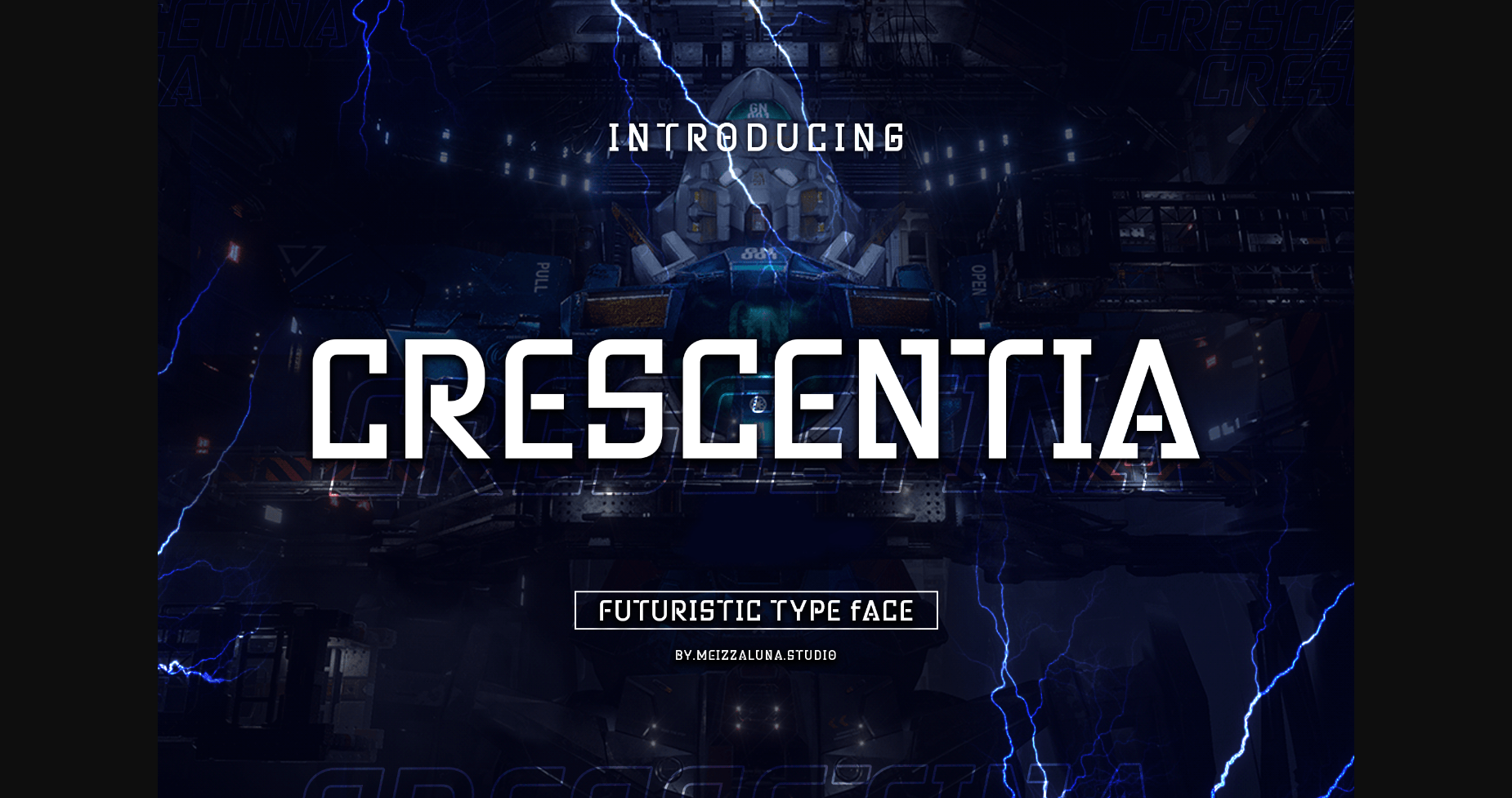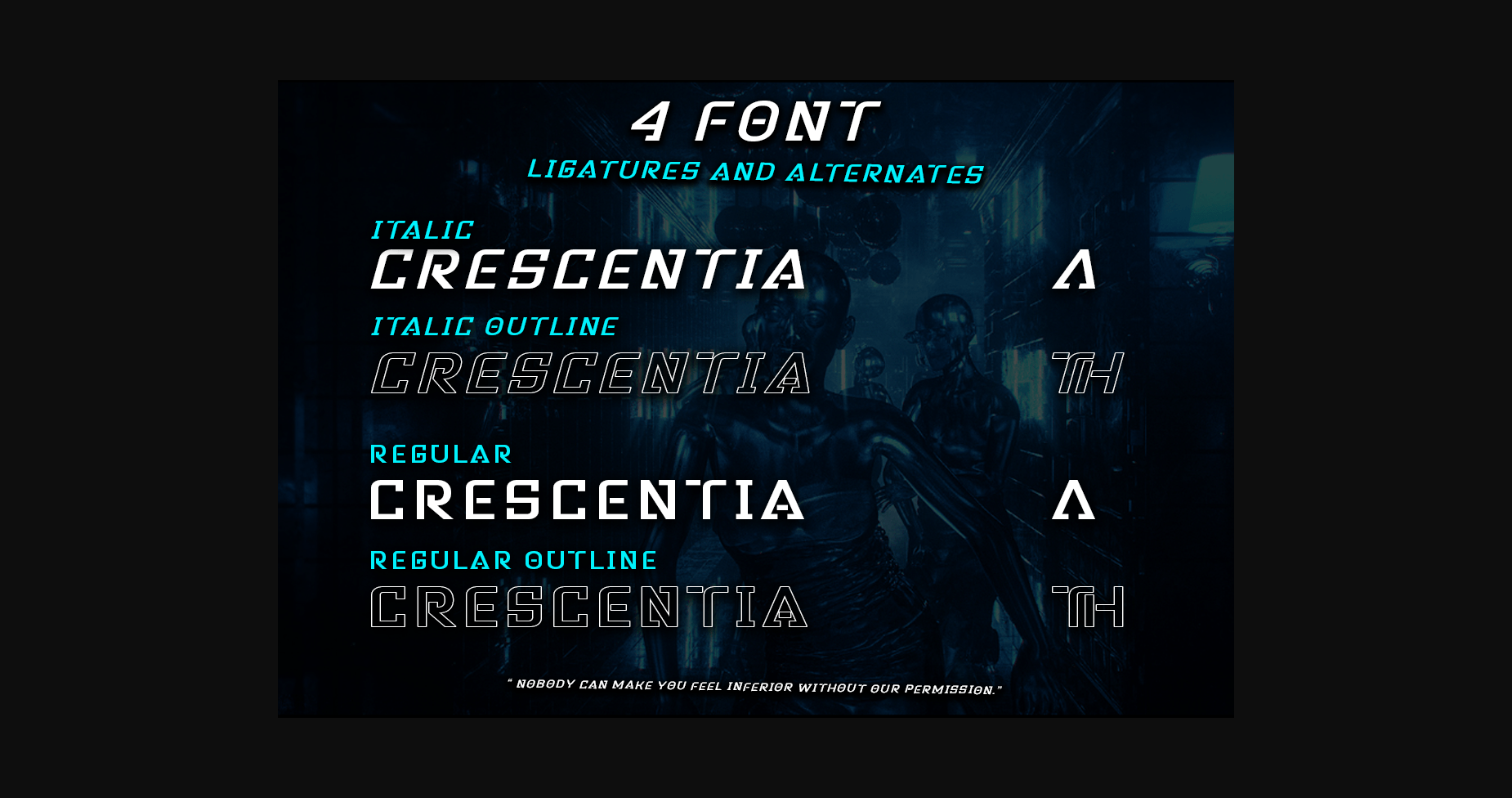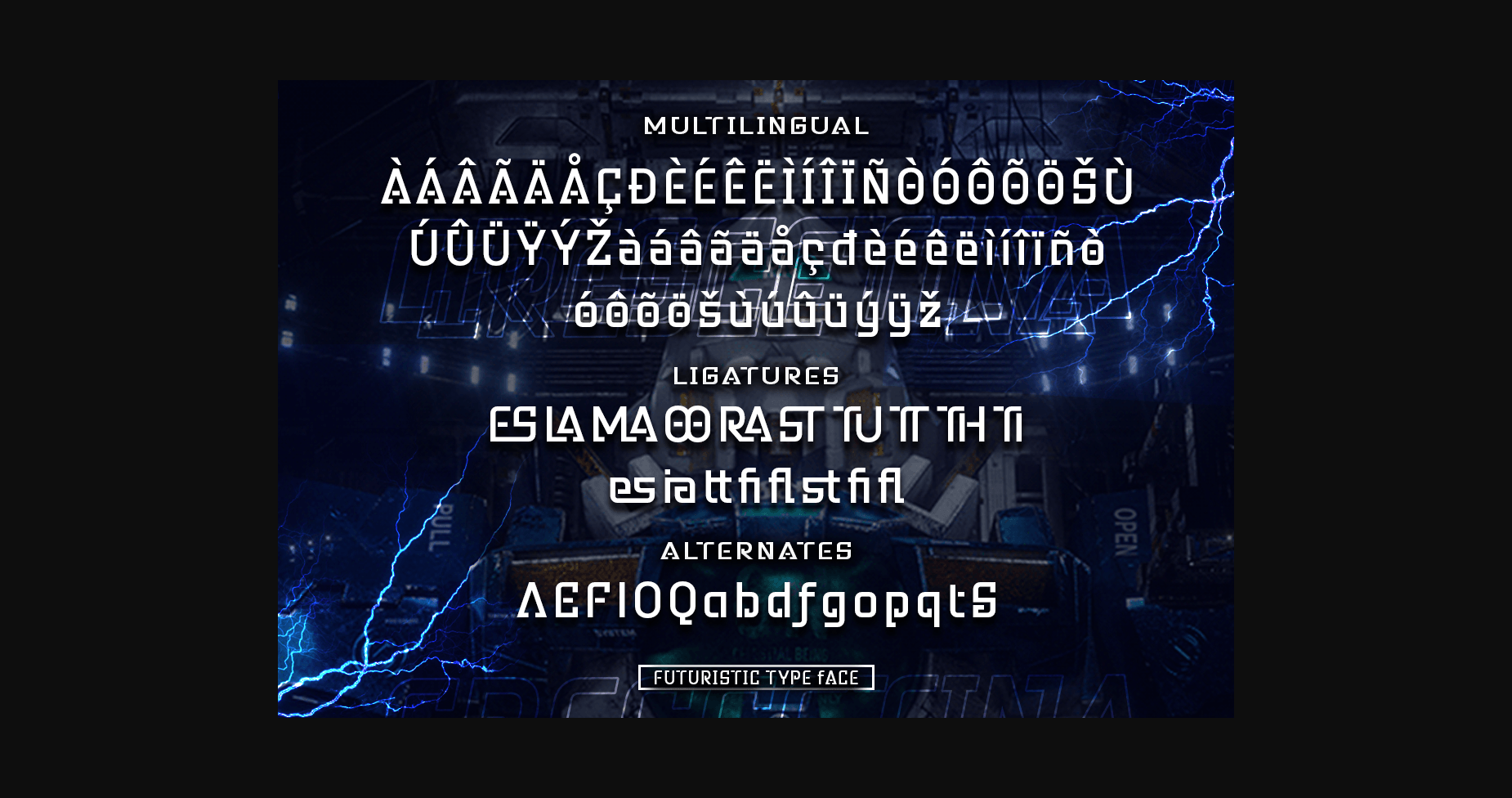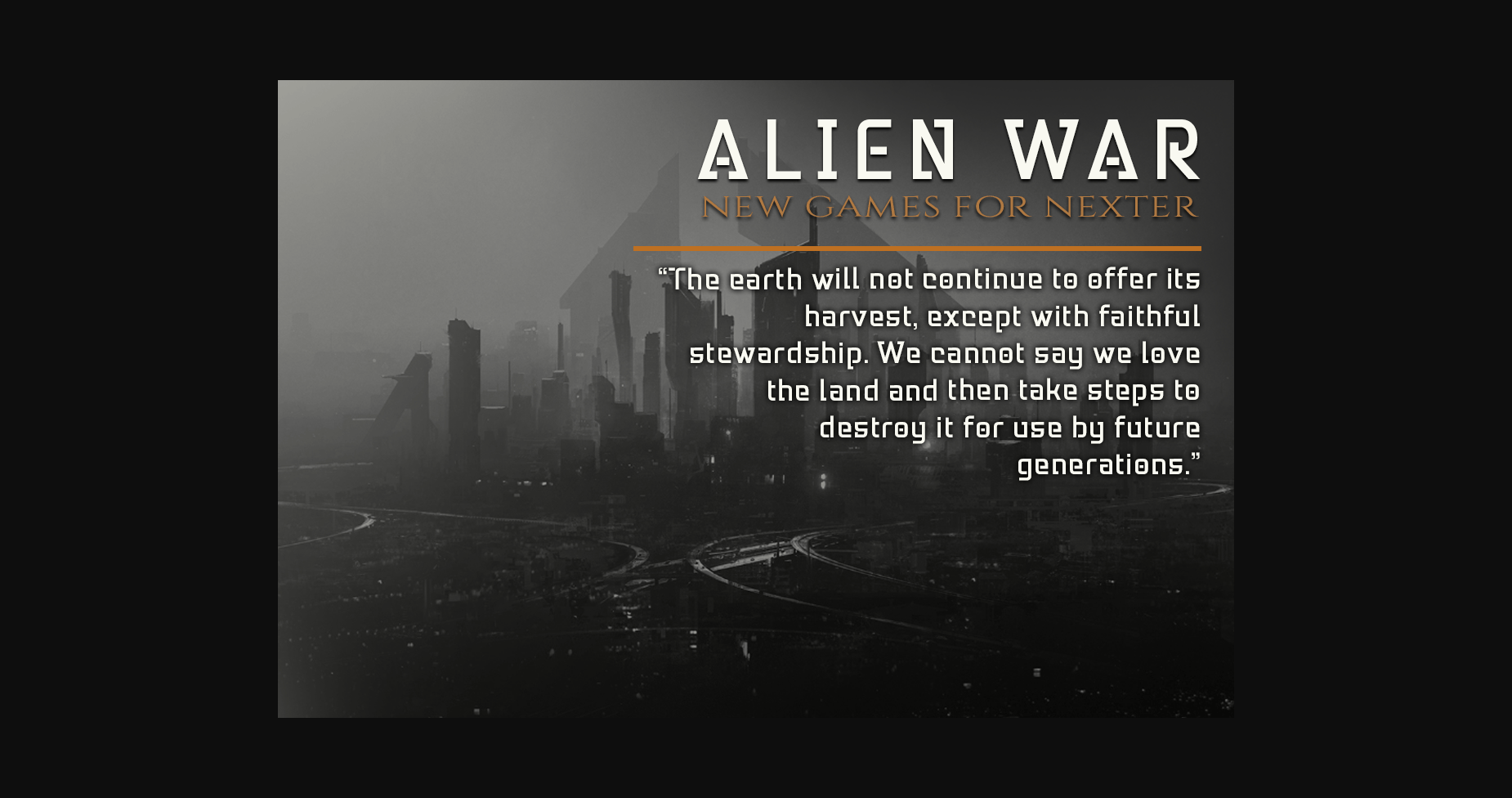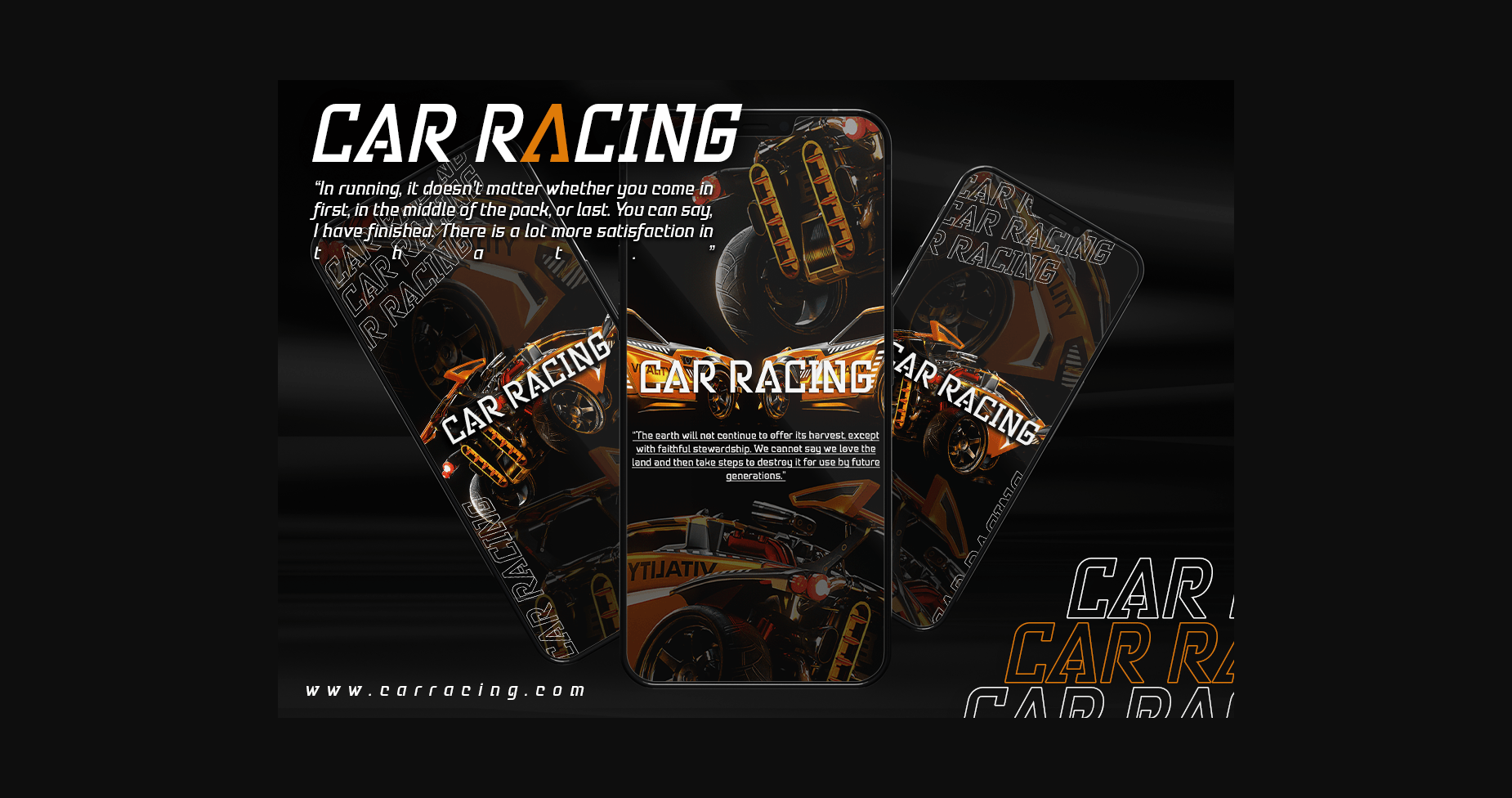
Crescentia Font
About Crescentia Font
Crescentia is a cool and futuristic display font. This modern and bold vibe can easily apply to your favorite designs that require a sci-fi touch.